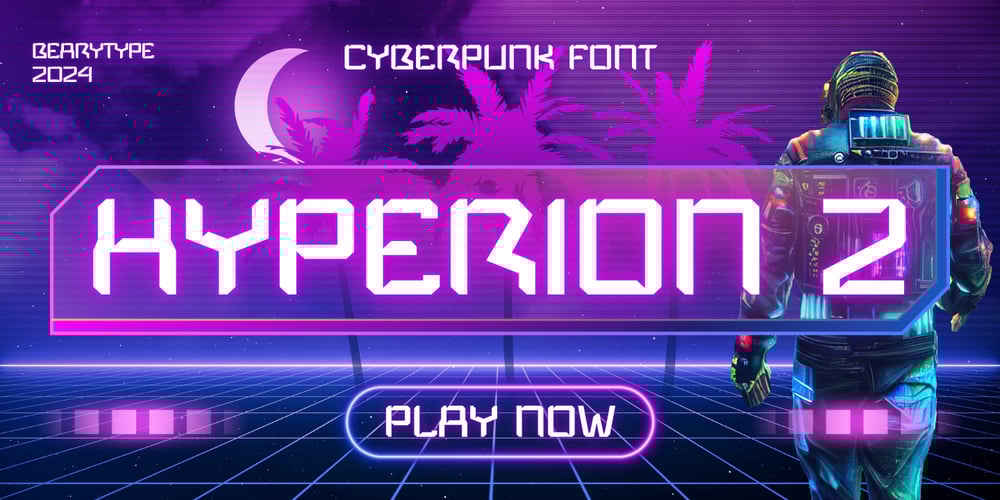
Bt Hyperion Futuristic Font Family was designed by Dian Haniffan Hadi and published by Beary. Bt Hyperion Futuristic contains 2 styles and family package options. Introducing Hyperion: a futuristic and technology-inspired font perfect for elevating your projects. Whether you’re designing applications, games, video thumbnails, t-shirts, posters, social media graphics, websites, or more, Hyperion has you covered.